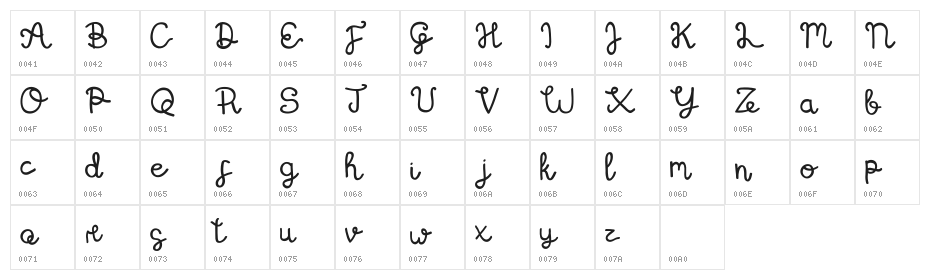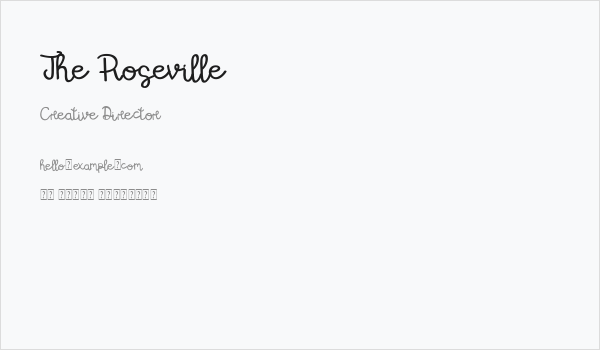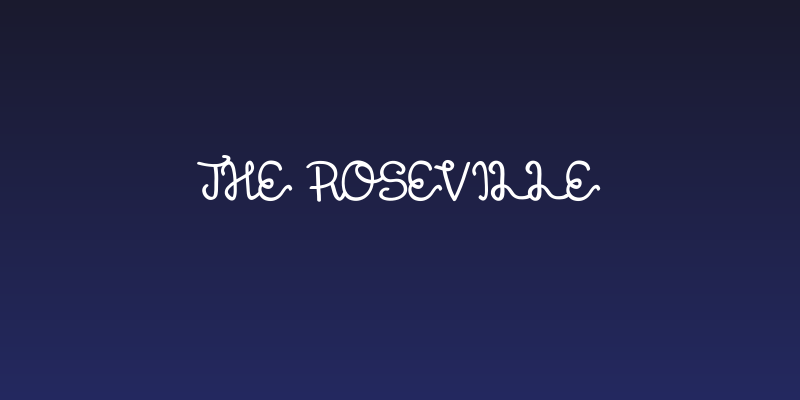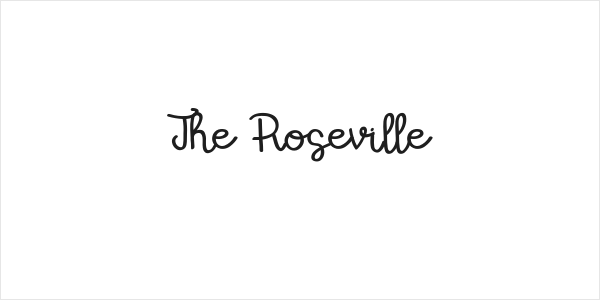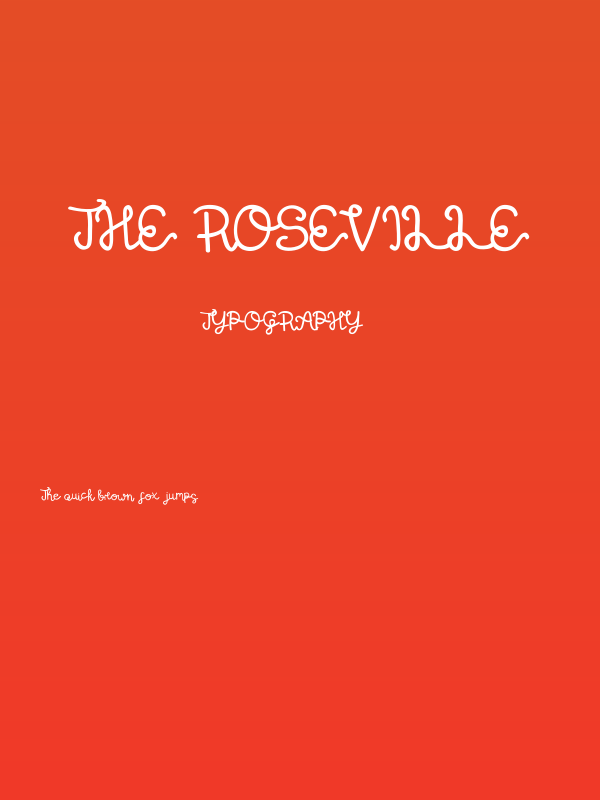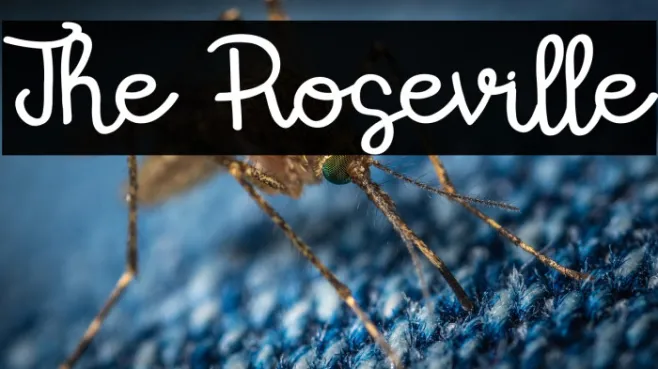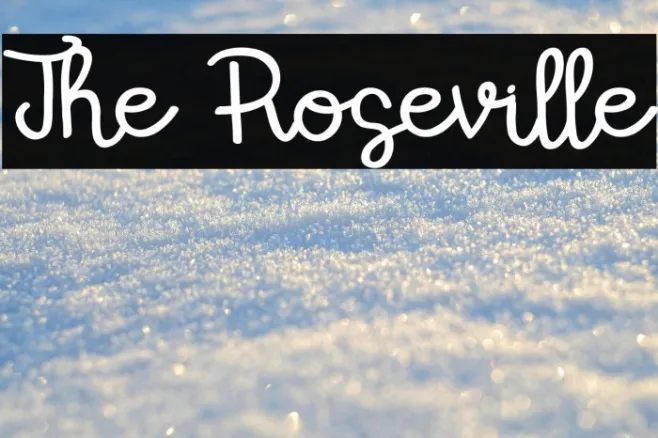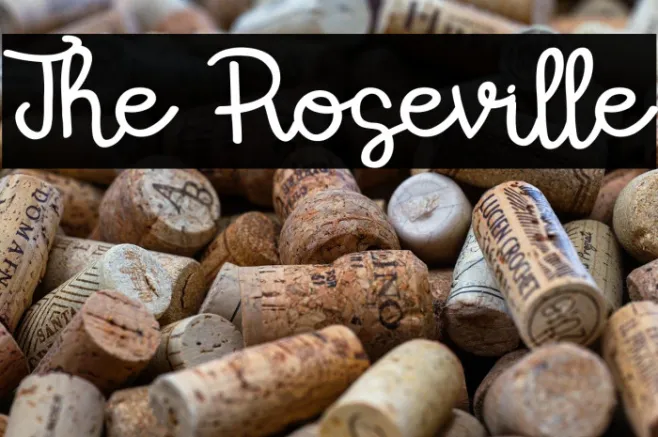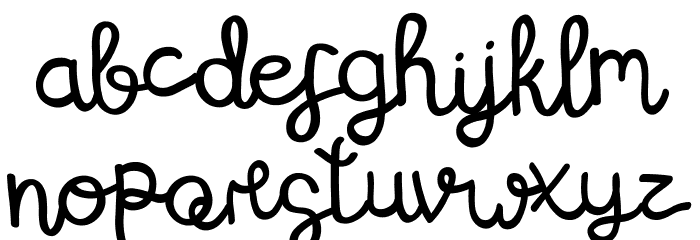
The Roseville Font
The Roseville Description
This font features a playful and whimsical script style, characterized by its flowing, interconnected letters. The strokes are smooth and rounded, giving it a friendly and approachable appearance. The uppercase and lowercase letters maintain a consistent style, with a slight slant that adds to its casual charm. The font includes a full set of numerals and a selection of special characters, all designed with the same fluidity and elegance. Its unique style makes it suitable for creative projects that require a personal touch.
| Proposed Projects | Ideal for greeting cards, invitations, personal branding, and creative projects. |